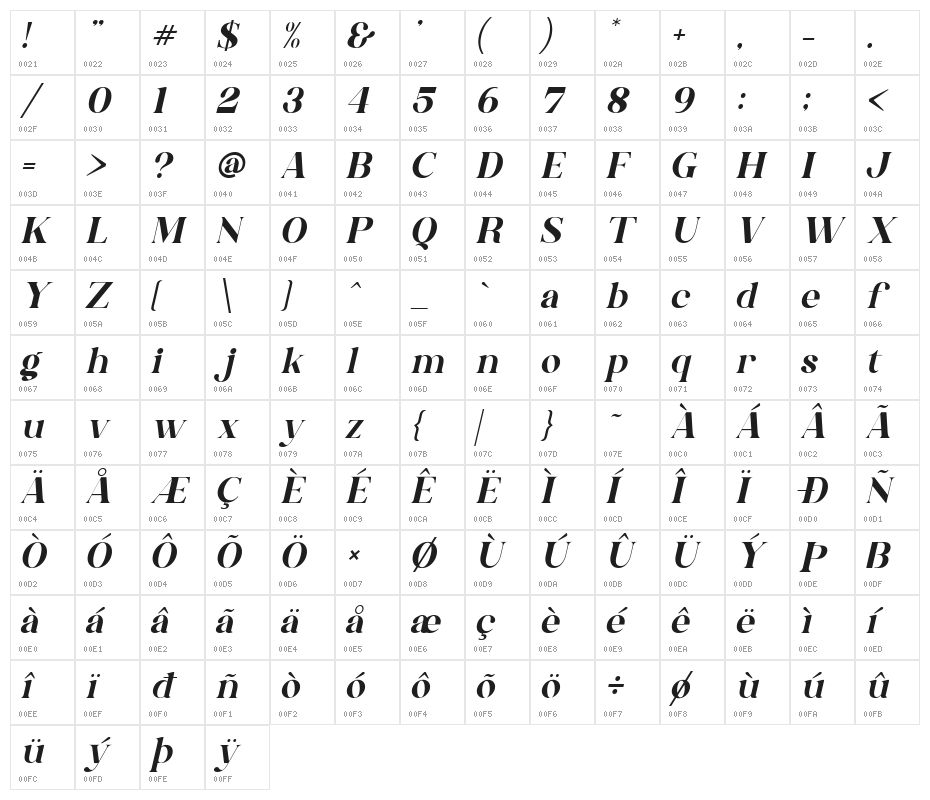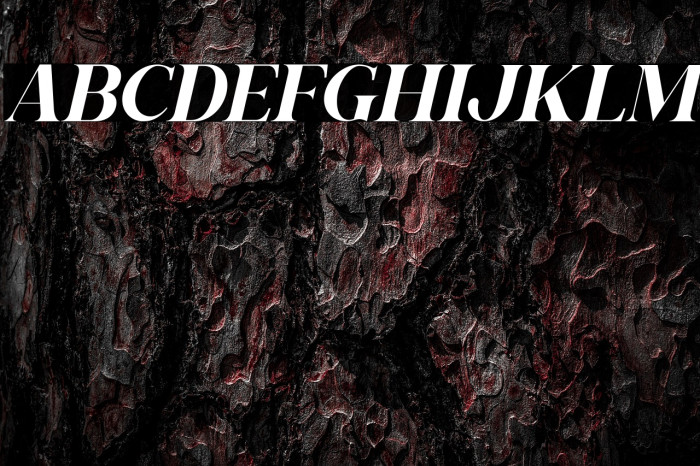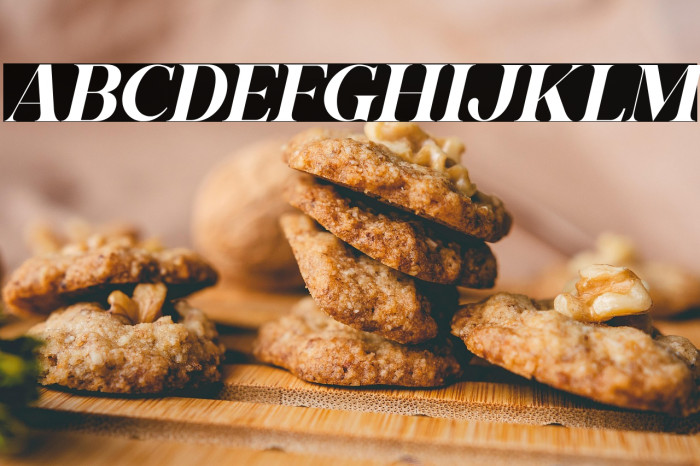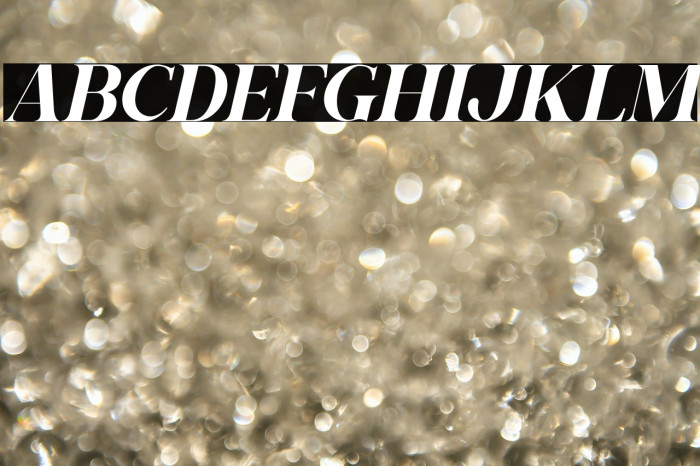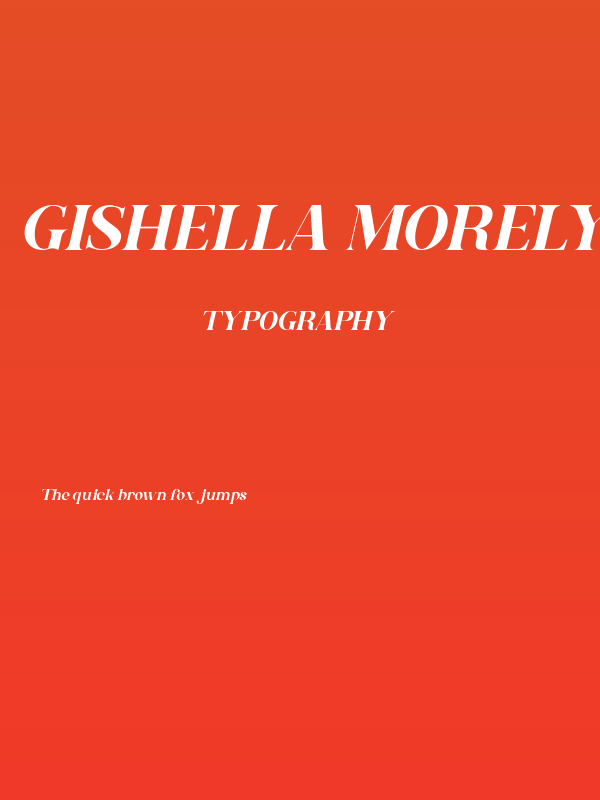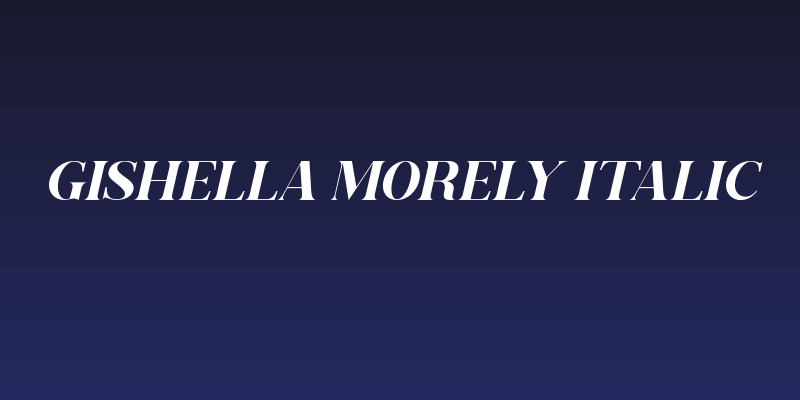
Gishella Morely Italic Font
Gishella Morely Italic Description
This elegant font features a sophisticated italic style with smooth, flowing curves and a refined appearance. The uppercase letters exhibit a graceful slant, enhancing their classic appeal. The lowercase characters maintain a consistent italic angle, contributing to the font's cohesive look. The numerals are stylishly designed, complementing the overall aesthetic. Special characters are thoughtfully integrated, ensuring versatility in various design contexts. The font's high contrast in stroke thickness adds to its striking visual impact, making it suitable for projects that require a touch of elegance and sophistication.
| Proposed Projects | Ideal for wedding invitations, luxury branding, editorial design, and elegant packaging. |